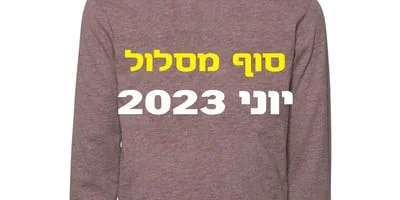
Kilshon MF Font
Kilshon MF Font is expressively designed for Hebrew linguistic projects, Middle Eastern cultural branding, religious ceremonial materials, Semitic language publications, multicultural educational resources, heritage preservation documents, biblical text layouts, and international communication systems. This culturally significant typeface excels in environments requiring Hebrew authenticity and linguistic precision, making it perfect for religious institutions, Hebrew schools, cultural centers, and any organization needing to communicate Hebrew linguistic heritage and Middle Eastern cultural depth through authentic typography.
What makes Kilshon MF Font so exciting is its masterful interpretation of Hebrew calligraphic traditions combined with contemporary linguistic functionality that ensures both cultural authenticity and modern academic usability. The font features skillfully crafted letterforms that honor traditional Hebrew scribal arts while incorporating modern typographic principles for optimal readability in scholarly and religious contexts. Its linguistic construction and cultural character make it incredibly valuable for brands wanting to communicate Hebrew scholarship, religious authority, and cultural authenticity while serving Hebrew-speaking communities and multicultural educational environments.
Kilshon MF Font typically includes comprehensive Hebrew character sets with multiple weights such as Light, Regular, Medium, and Bold, often accompanied by specialized variants for religious and academic applications. The font family frequently features traditional Hebrew typographic elements including proper vowel pointing, cantillation marks, and religious symbols essential for authentic Hebrew text rendering. Each weight maintains the font's distinctive cultural character while offering different levels of linguistic emphasis, providing designers with complete Hebrew typographic solutions for religious, educational, and cultural communication needs.
Hebrew language professionals will find that Kilshon MF Font delivers superior performance in both traditional religious applications and contemporary Hebrew educational materials requiring linguistic accuracy. The font's meticulously crafted character set includes culturally appropriate Hebrew letterforms, religious symbols, and academic elements essential for Hebrew publishing, religious materials, and Hebrew language education. Its authentic design makes it particularly effective for synagogues, Hebrew educational institutions, Jewish cultural organizations, and Hebrew-oriented marketing campaigns requiring genuine linguistic presence.
The careful attention to Hebrew calligraphic proportions and traditional spacing ensures that Kilshon MF Font maintains cultural authenticity while delivering excellent readability across all Hebrew text applications. Its heritage-inspired design language makes it exceptionally suitable for religious organizations, Hebrew education, Jewish cultural preservation, and multicultural communications. The font's authoritative appearance creates strong linguistic credibility while remaining highly functional across different contexts from traditional religious texts to contemporary Hebrew learning materials.
For designers seeking a typeface that embodies Hebrew linguistic heritage with cultural authenticity, Kilshon MF Font represents an essential choice that will honor any project with its distinctive tradition and Hebrew character.